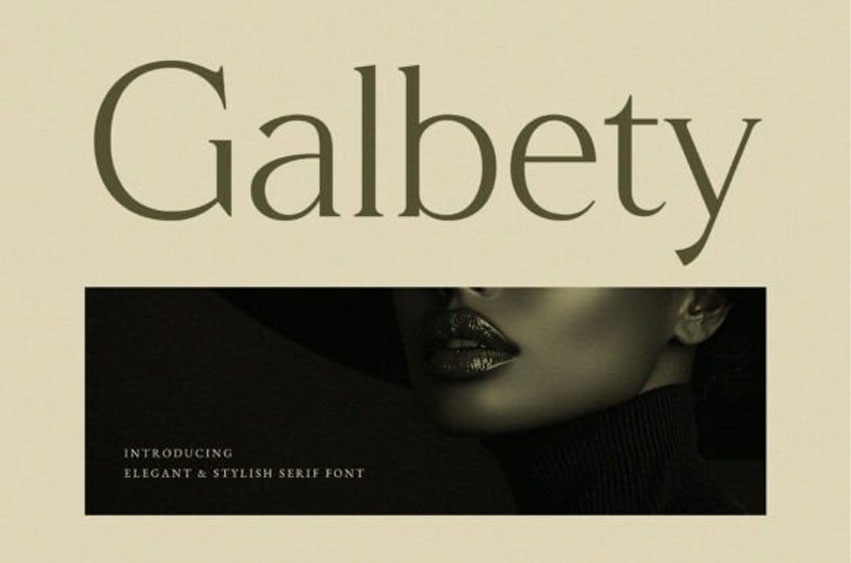
Galbety Font
Galbety Font is a chic serif font that combines elegance with a touch of modern flair. Featuring graceful curves, refined serifs, and balanced proportions.
Galbety is ideal for sophisticated branding, editorial headlines, wedding designs, and high-end packaging. Its versatile aesthetic effortlessly elevates any layout with a polished and timeless feel.